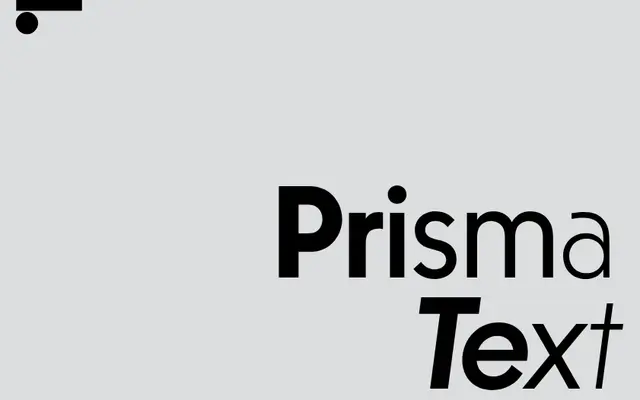
LL Prisma Text
Lineto · Robert Huber · 2021
A text companion to the display face LL Prisma, reverse-engineered from its multi-line geometry back towards a functional geometric sans with improved legibility.
Developed initially as a custom commission for Lausanne's Plateforme 10 museum cluster in 2016, Robert Huber extended the family to a full release in 2021 with italics and a bold weight. Subtle adjustments to letter-shapes, proportions and contrast improve compactness over the display original, and the caps-height is raised to match the ascenders. A separate Low variant preserves LL Prisma's original shorter uppercase forms for pairing with the display typeface.
A geometric sans-serif with humanist text refinements, developed as a companion to the display typeface LL Prisma and sharing a lineage with Rudolf Koch's Kabel. Subtle optical adjustments to proportions and contrast distinguish it from purely constructed geometric designs.